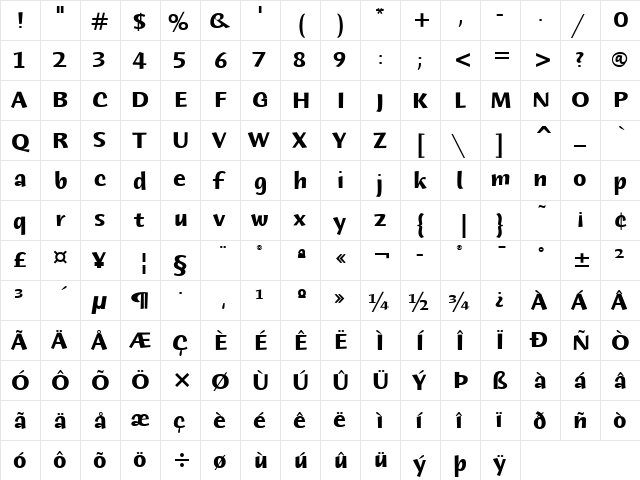
Humana Sans ITC Bold
Design Context for Humana Sans ITC Typeface
Humana Sans ITC offers clean, dependable letterforms without strong stylistic allegiance, making it a practical choice for designers who need flexibility. Its bold stroke weight gives it real presence on the page.